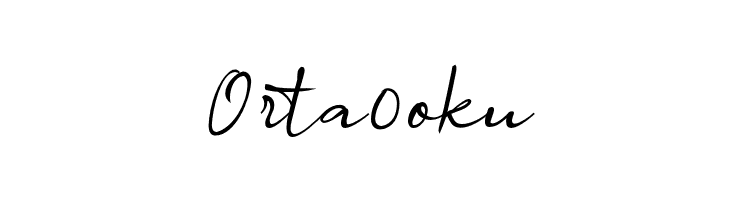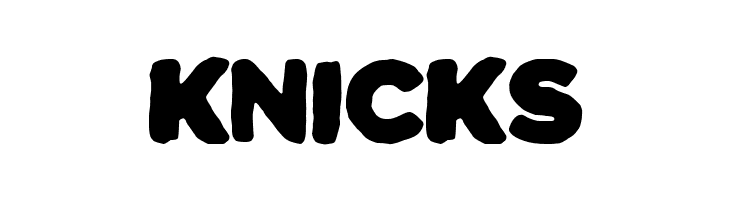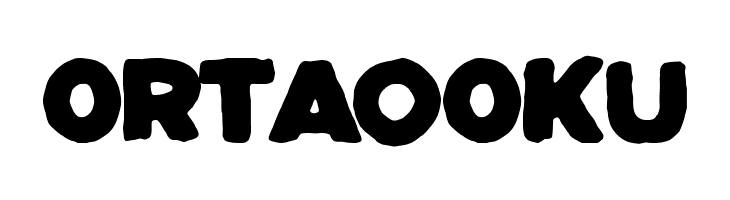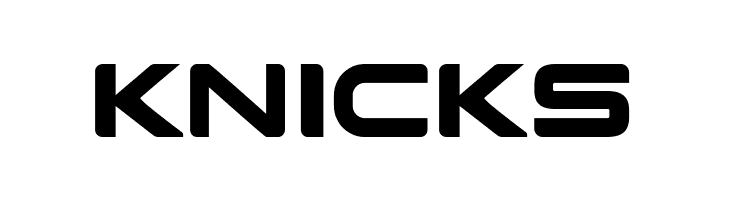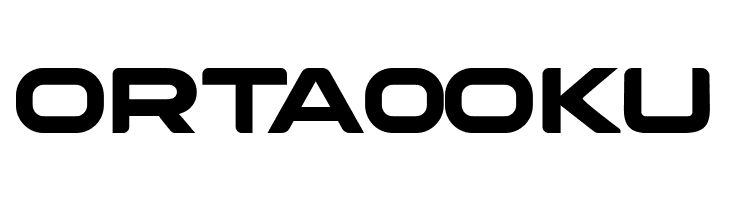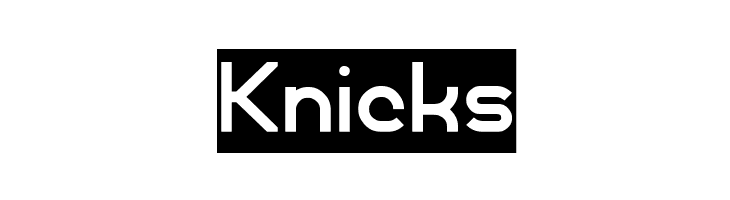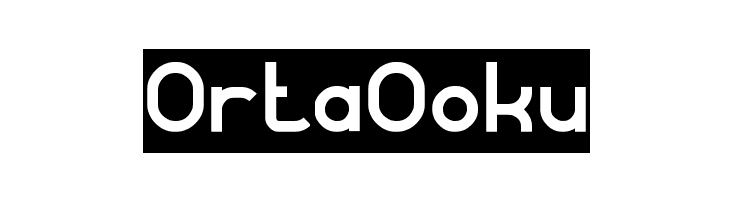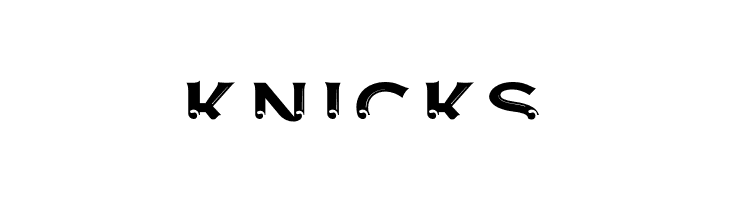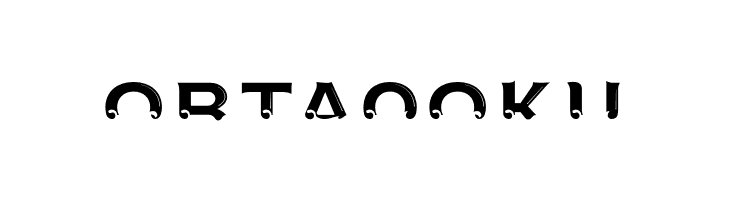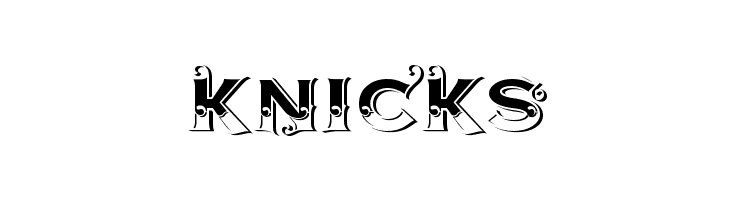
• Agreement_Signature_
A cursive, handwritten font with elegant, flowing strokes.
• Agreement_Signature_
A fluid, elegant script font with a handwritten calligraphic style.
• Agreement-Inverse
A modern, geometric font with clean lines and a bold presence.
• Agreloy
A bold, decorative font with intricate swirls and vintage flair.
• AgreloyInB1
An abstract, artistic font with thin, fluid strokes and a modern, decorative style.
• AgreloyInT3
A decorative font with bold, geometric characters and intricate cut-out details.
• AgreloyOut1
A decorative and whimsical font with intricate swirls and curls.
• AgreloyS1
A bold, decorative font with intricate flourishes and high contrast.
• Agresiva
A bold, rounded font with a strong, playful presence.
• AGRESSIVE
A bold, modern font with a futuristic and geometric design.